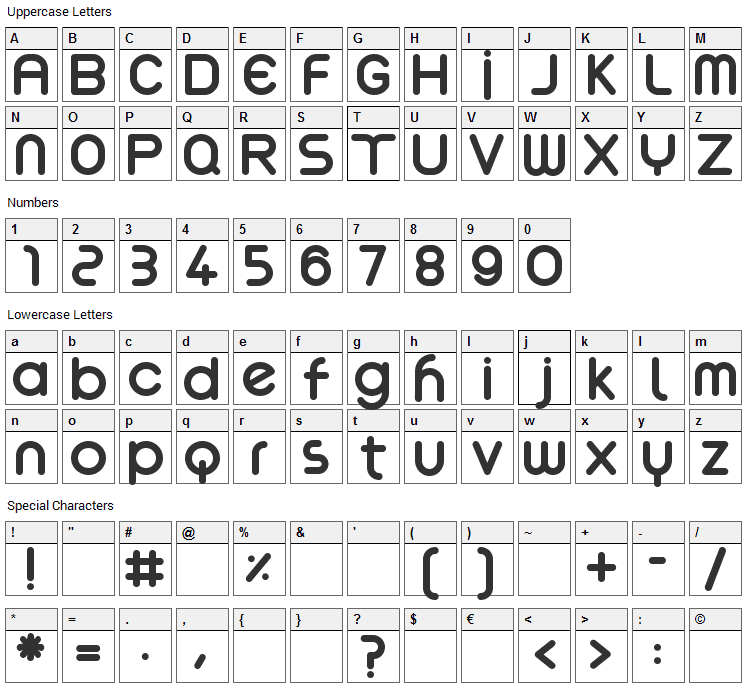
Cjust Font
Font Name:Cjust
Developer:Audrey Templier
Category:Basic > Sans Serif
Audrey Templier, French designer (b. 1984) is the creator of the free monowidth sans typeface Cjust, released in 2006
Cjust font contains 129 defined characters and 124 unique glyphs.